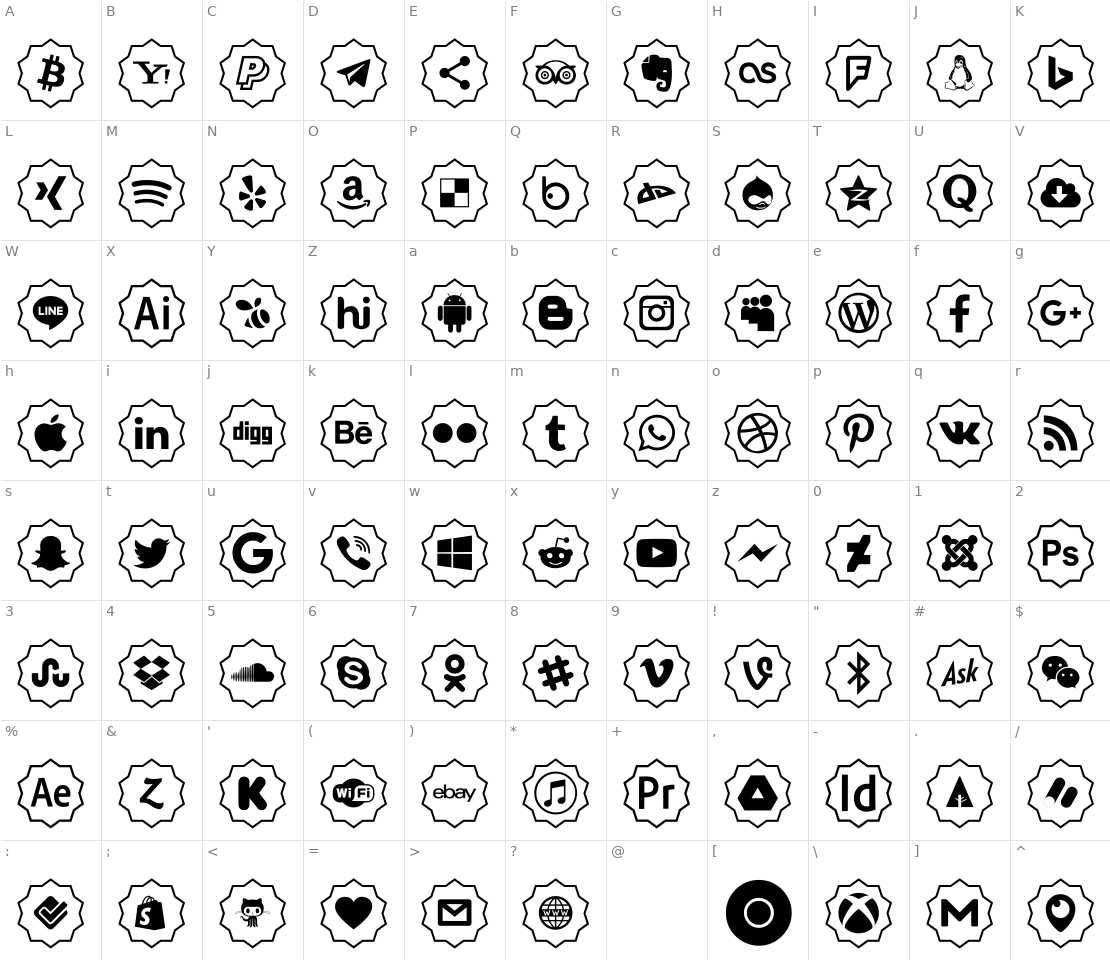
Font Color icon
Font Color icon is a symbol font by elharrak containing monochrome icons geared toward social media, web interfaces, and badge-style graphics. Rather than traditional letterforms, each glyph is a small pictographic element, useful for UI mockups, social media kits, or anywhere you need simple, consistent iconography without reaching for an image file.